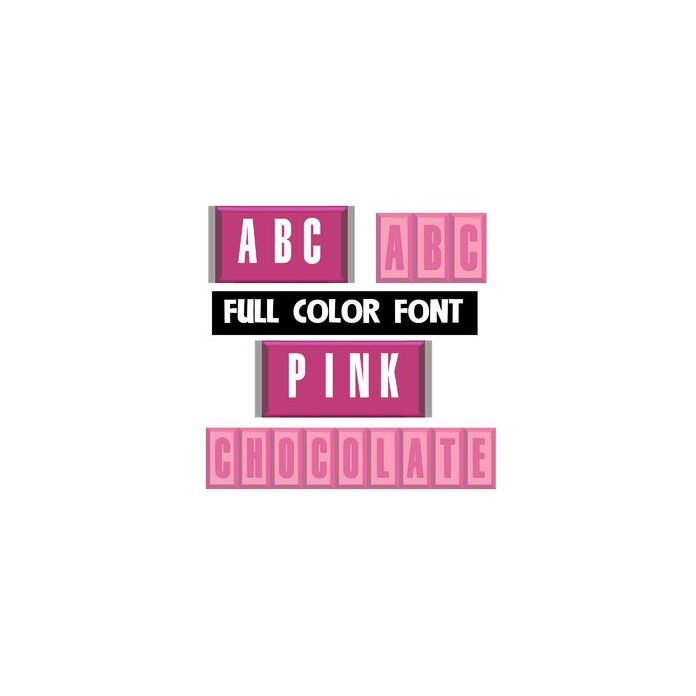
This full-color font features an uppercase of the outside wrapper of a candy bar. Use greater than and less than brackets for candy bar "ends". The lowercase is the chocolatey inside of the candy bar.